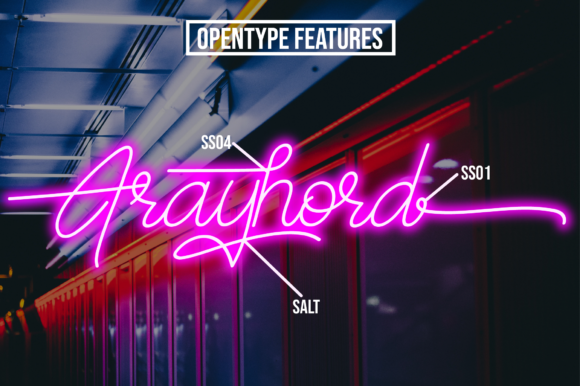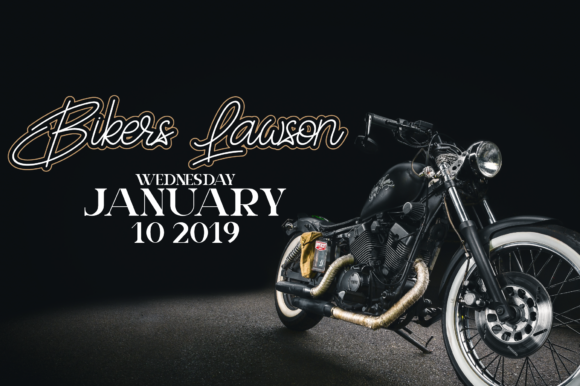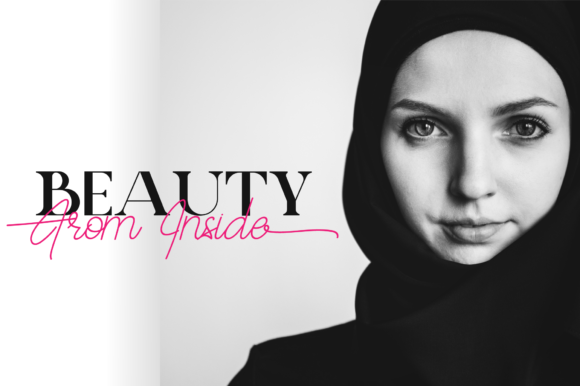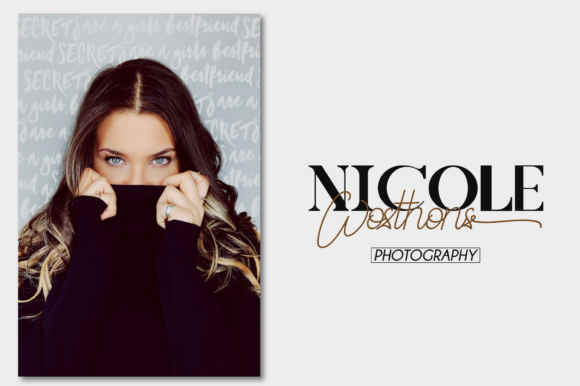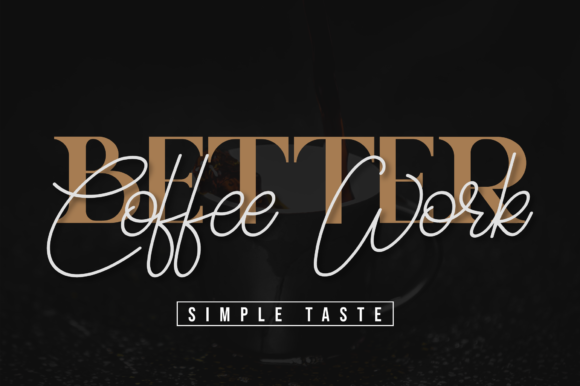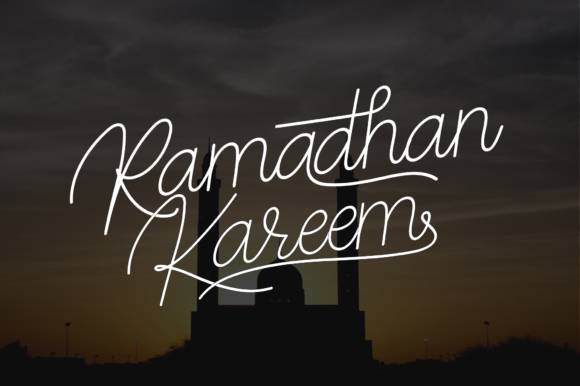
Frayhord Font: Elevate Your Design with a Bold Handwritten Style
Frayhord is a stunning handwritten font with a bold feel. It will turn any design project into a true stand out! If you’re a designer or crafter looking for a font that can add a touch of personality and flair to your work, Frayhord is an excellent choice. In this article, we’ll dive into the features and benefits of Frayhord Font, and explore how it can be used to take your designs to the next level.
What is Frayhord Font?
Frayhord is a modern handwritten font that boasts a bold and eye-catching style. Its unique lettering and irregularities give it a personal and organic feel, making it perfect for designs that require a touch of warmth and character. The font is designed to be versatile and can be used for a wide range of projects, from branding and advertising to packaging and digital media.
Key Features of Frayhord Font
- Bold and Eye-Catching: Frayhord Font has a bold and attention-grabbing style that is sure to make your designs stand out.
- Handwritten Style: The font has a personal and organic feel, thanks to its handwritten style and irregularities.
- Versatile: Frayhord can be used for a wide range of projects, from branding and advertising to packaging and digital media.
- Easy to Read: Despite its bold style, Frayhord is easy to read and can be used for both headings and body text.
Benefits of Using Frayhord Font
So, why should you choose Frayhord Font for your design projects? Here are just a few benefits of using this amazing font:
- Adds Personality: Frayhord Font can add a touch of personality and flair to your designs, setting them apart from the competition.
- Creates Emotional Connection: The font’s handwritten style and irregularities can create an emotional connection with your audience, making your designs more relatable and engaging.
- Versatile: Frayhord can be used for a wide range of projects, making it a great addition to any designer’s toolkit.
- Time-Saving: With Frayhord Font, you can create stunning designs in no time, thanks to its ease of use and versatility.
How to Use Frayhord Font
Using Frayhord Font is easy! Here are a few tips to get you started:
- Pair it with Other Fonts: Frayhord looks great when paired with other fonts, such as sans-serif fonts for a modern look or serif fonts for a more traditional feel.
- Experiment with Colors: The font looks great in a range of colors, from bold and bright to muted and pastel.
- Use it for Headings: Frayhord is perfect for headings and titles, thanks to its bold and eye-catching style.
- Use it for Body Text: The font is also easy to read and can be used for body text, making it a great choice for designs that require a lot of text.
Who Can Use Frayhord Font?
Frayhord Font is perfect for designers and crafters who want to add a touch of personality and flair to their work. Here are just a few examples of who can use Frayhord:
- Graphic Designers: Frayhord is perfect for graphic designers who want to create stunning branding and advertising materials.
- Crafters: The font is great for crafters who want to add a personal touch to their handmade products.
- Digital Artists: Frayhord can be used by digital artists who want to create stunning digital media, such as videos and animations.
In conclusion, Frayhord Font is a stunning handwritten font with a bold feel that can turn any design project into a true standout. Its unique lettering and irregularities give it a personal and organic feel, making it perfect for designs that require a touch of warmth and character. With its versatility, ease of use, and range of benefits, Frayhord Font is a great addition to any designer’s toolkit.